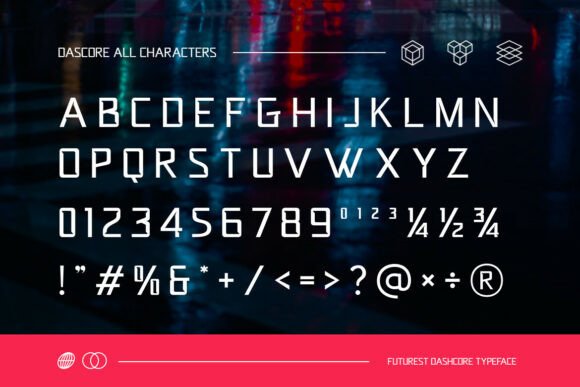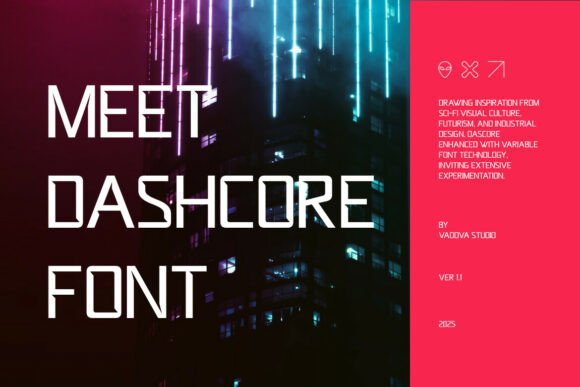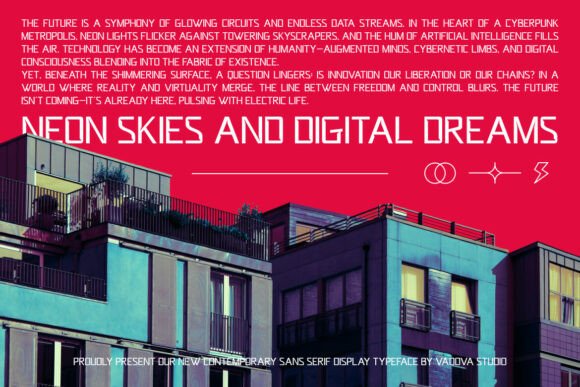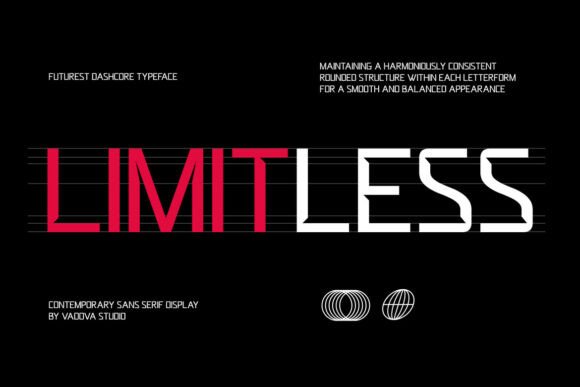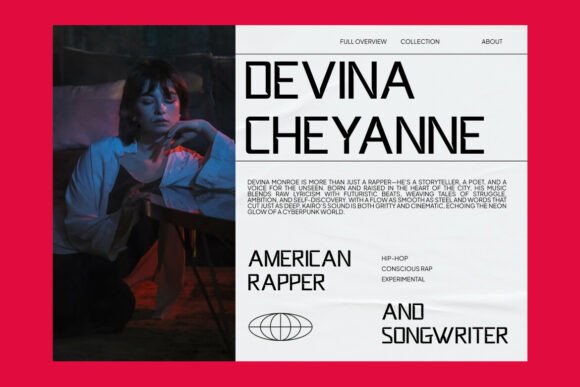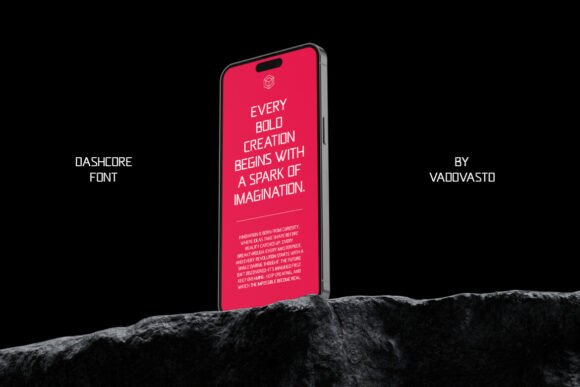
Introducing Dashcore Font: Elevate Your Digital Design with Futuristic Elegance
In the realm of digital design, the right typography can make all the difference. A font that embodies the essence of modernity, sleekness, and futuristic appeal can instantly elevate your brand’s visual identity. This is where Dashcore Font comes into play – a revolutionary sans serif font designed specifically for contemporary digital design. With its clean lines, tall proportions, and minimalistic elegance, Dashcore is poised to transform the way you approach branding, editorial layouts, music visuals, and UI/UX interfaces.
The Essence of Dashcore Font
Dashcore is more than just a font – it’s an experience. Crafted with the needs of modern digital designers in mind, it brings a bold yet refined presence to the table. Its sleek and futuristic appearance is characterized by:
- Clean Lines: Uncluttered and precise, Dashcore’s lines contribute to its modern and approachable feel.
- Tall Proportions: These give Dashcore an air of elegance and sophistication, making it stand out in any design.
- Minimalistic Elegance: Embracing the ‘less is more’ philosophy, Dashcore achieves a perfect balance between form and function.
Perfect Applications for Dashcore
Dashcore’s versatility means it can be seamlessly integrated into various design projects, including:
- Tech-Driven Branding: For companies looking to project a modern and forward-thinking image, Dashcore is the ideal choice.
- Editorial Layouts: Add a touch of sophistication and modernity to magazines, blogs, and digital publications.
- Music Visuals: Whether it’s album covers, promotional materials, or music videos, Dashcore brings a dynamic and youthful vibe.
- Stylish UI/UX Interfaces: Enhance user experience with a font that communicates clarity, efficiency, and a cutting-edge approach.
Why Choose Dashcore for Your Projects?
Dashcore isn’t just another font; it’s a tool to elevate your visual storytelling. Here are a few reasons why it stands out:
- Bold Presence: Make a statement with headlines, posters, and promotional content that demand attention.
- Modern Clarity: In a digital age where clarity is key, Dashcore ensures your message is conveyed with precision and style.
- Digital Energy: Infuse your designs with a vibrant, dynamic feel that’s sure to engage and captivate your audience.
Merging Minimalism with Futurism
Dashcore’s design philosophy revolves around merging minimalist principles with futuristic aesthetics. This blend results in a font that’s not only of the moment but also forward-thinking. It’s about stripping down to the essentials and then elevating those elements to create something truly distinctive.
- Experimentation: Don’t be afraid to experiment with different sizes, weights, and color schemes to find the perfect fit for your project.
- Pairing: Explore font pairing options to complement Dashcore and create visually appealing hierarchies.
Dashcore Font represents a significant leap forward in typography for digital design. Its unique blend of minimalist elegance and futuristic appeal makes it an invaluable asset for designers looking to push the boundaries of visual communication. Whether you’re crafting a brand identity, designing an editorial layout, or conceptualizing a UI/UX project, Dashcore offers the tools to elevate your work into a compelling narrative. Embrace the future of design with Dashcore and discover a new dimension of typographic excellence.